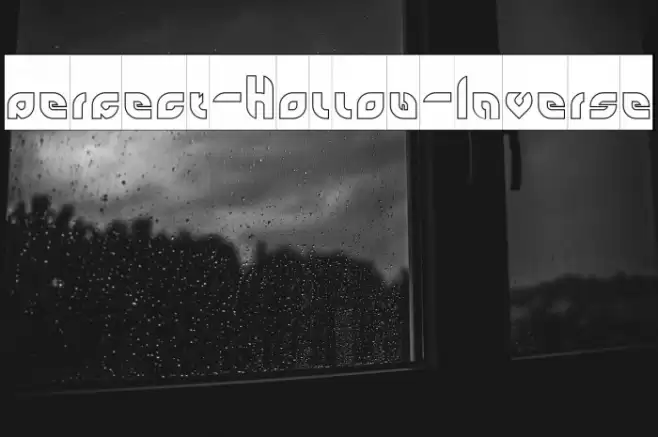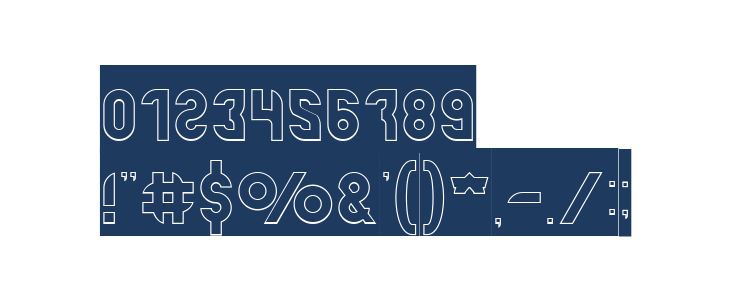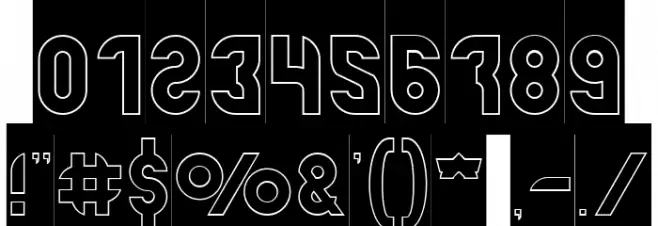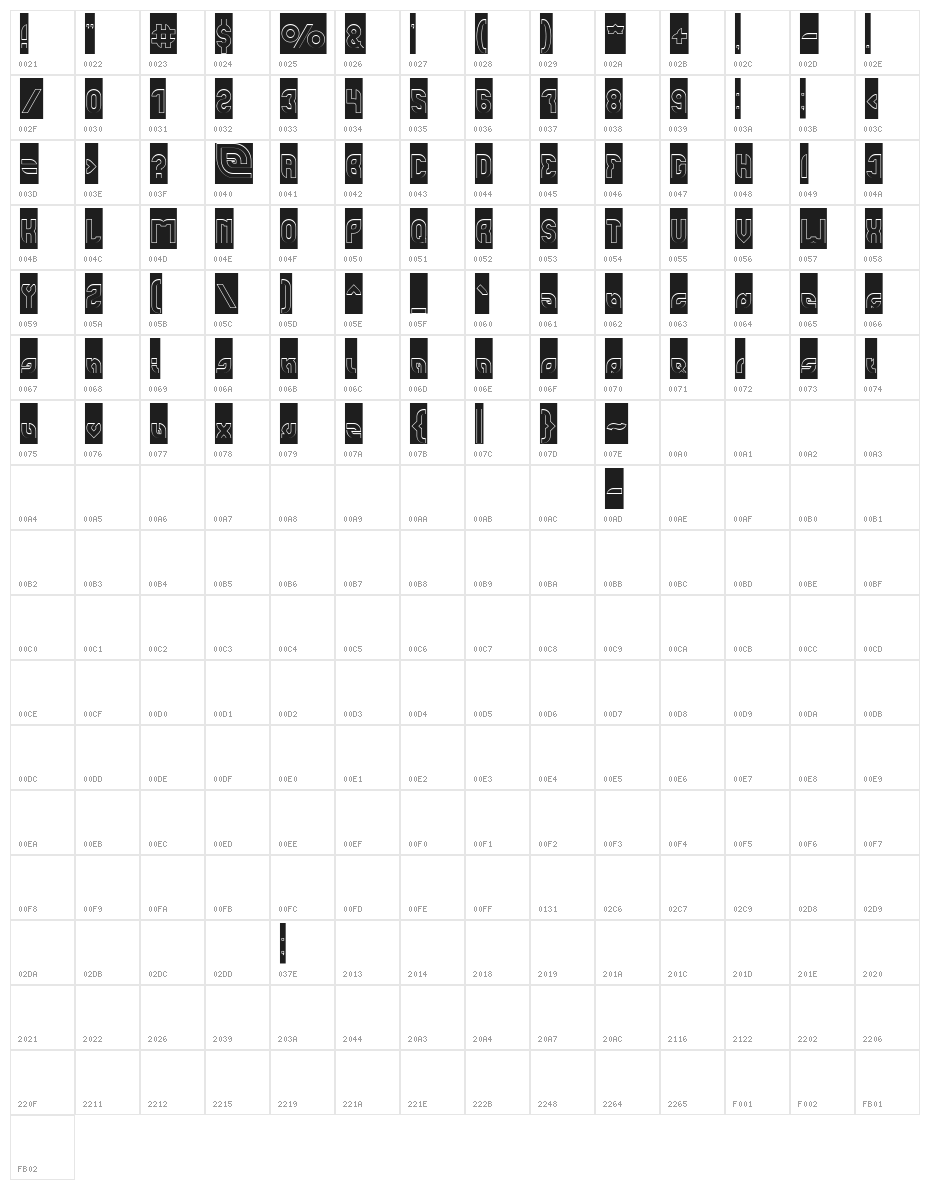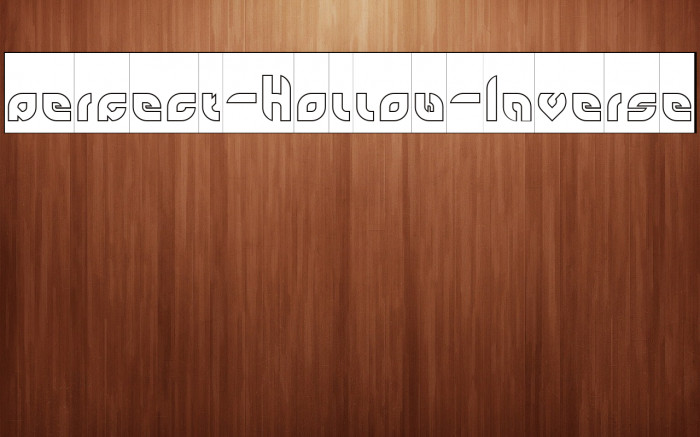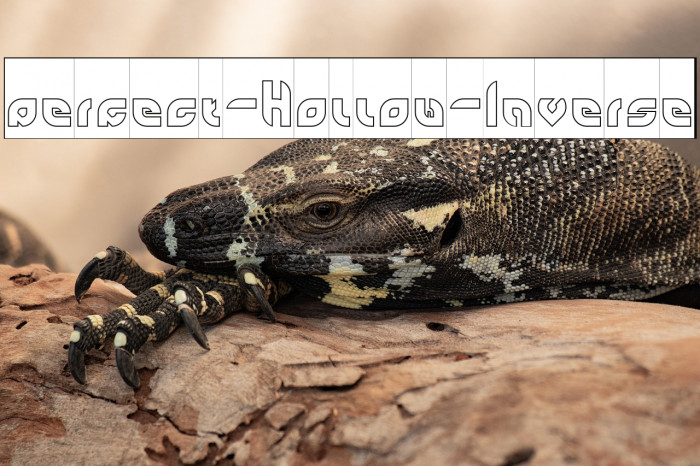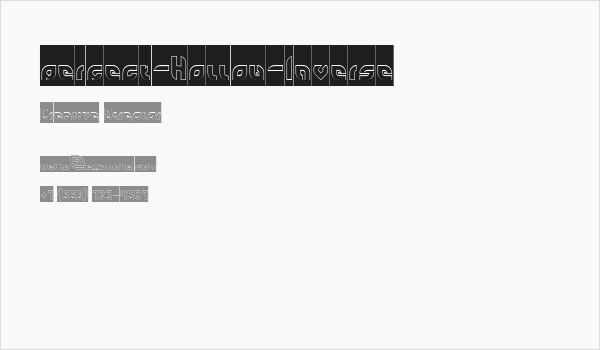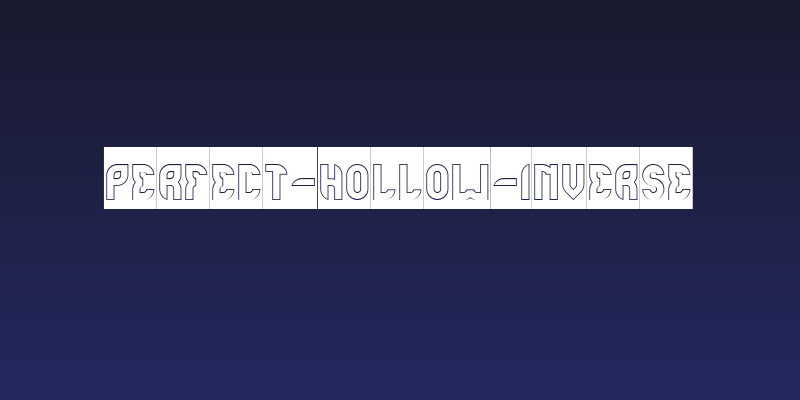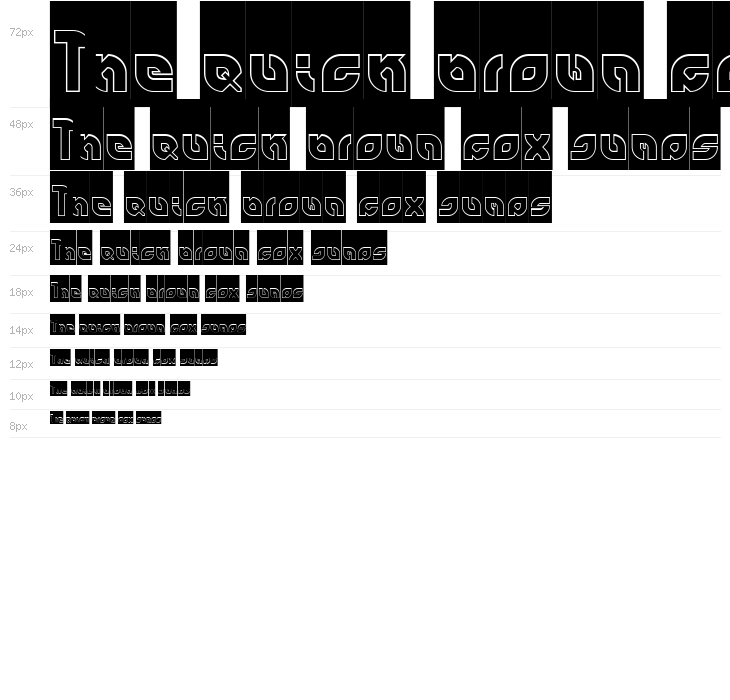
perfect-Hollow-Inverse Font
perfect-Hollow-Inverse Description
This font features a unique hollow design with an inverse style, where the interior of each character is cut out, creating a striking outline effect. The characters are bold and geometric, with sharp angles and clean lines that give it a modern and futuristic appearance. The uppercase and lowercase letters maintain a consistent style, while the numbers and special characters follow the same hollow pattern, ensuring uniformity across the font. The font's distinct appearance makes it highly suitable for attention-grabbing designs.
A bold, hollow, and geometric font with a modern, futuristic style from Uncategorized fonts.
- Proposed Projects: Ideal for posters, logos, headlines, and any design requiring a bold, modern statement.